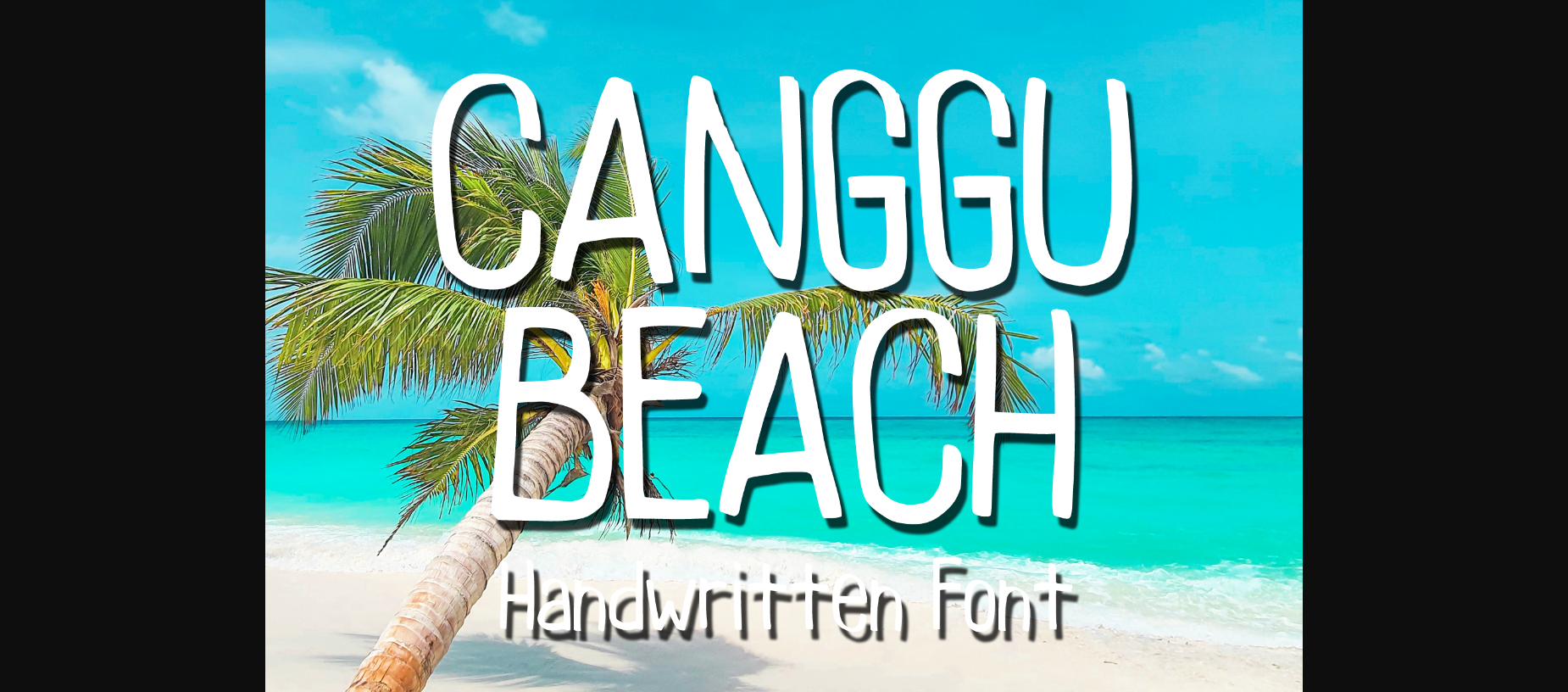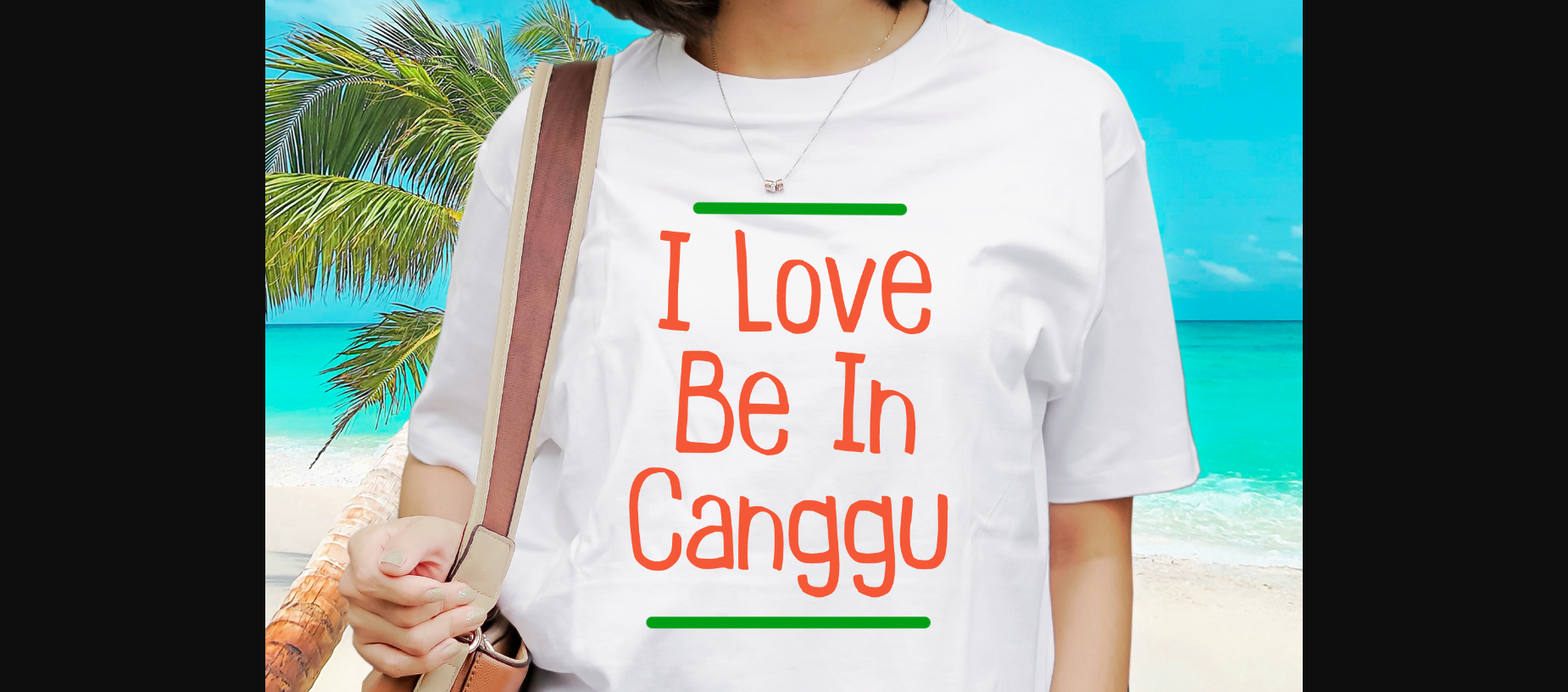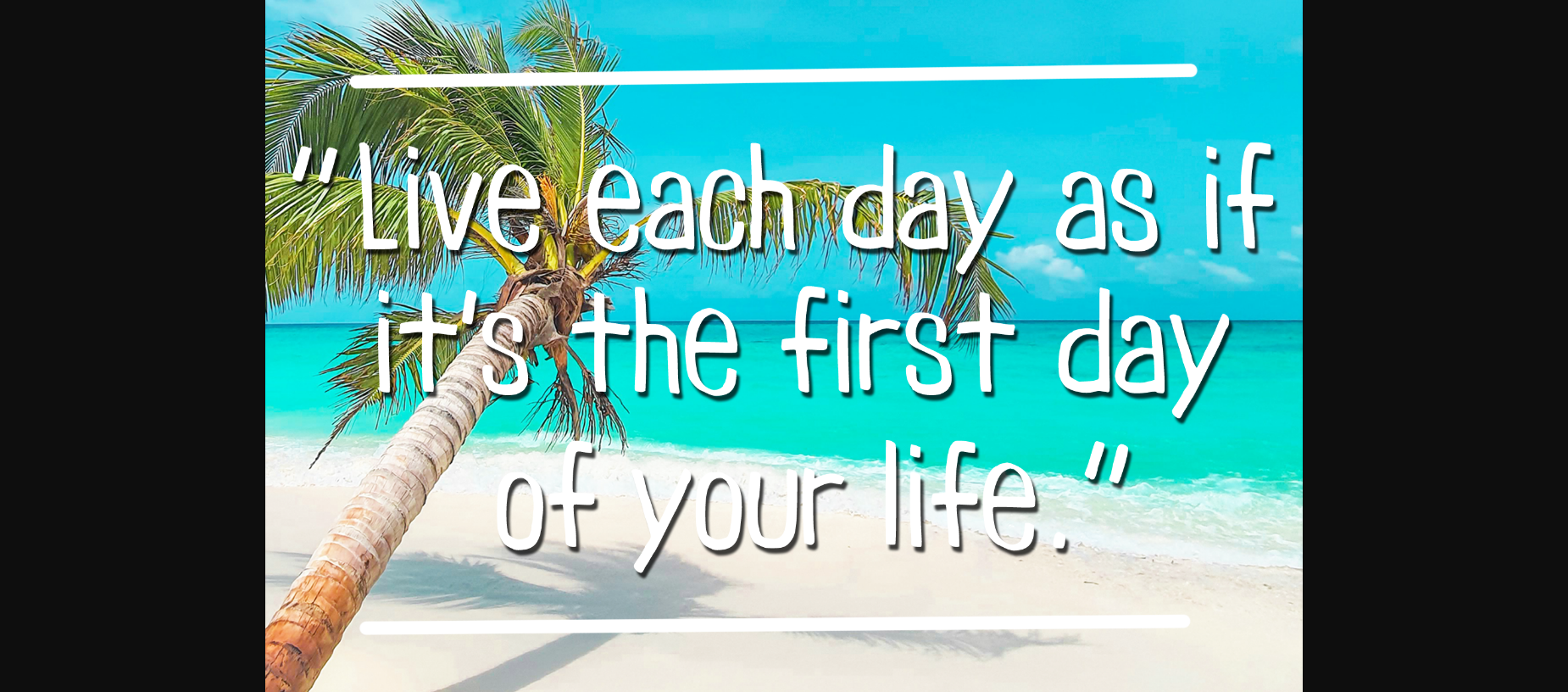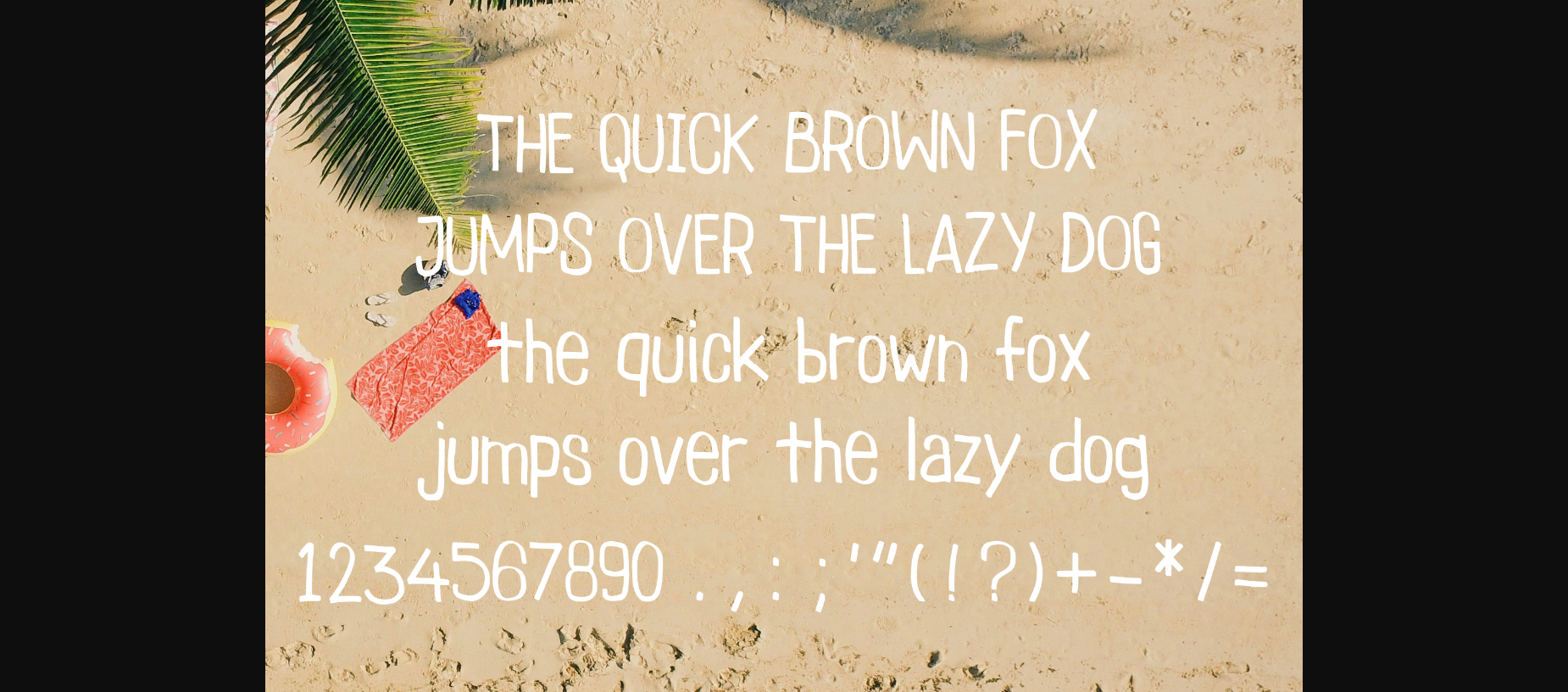
Canggu Beach Font
About Canggu Beach Font
Canggu Beach is a fun casual handwritten font. It is awesome for creating cool designs ranging from t-shirts, book designs, restaurant menu, blog writing, greeting cards to stickers, or anything that needs a casual touch. Fall in love with its incredibly cool style, and use it to create lovely designs!